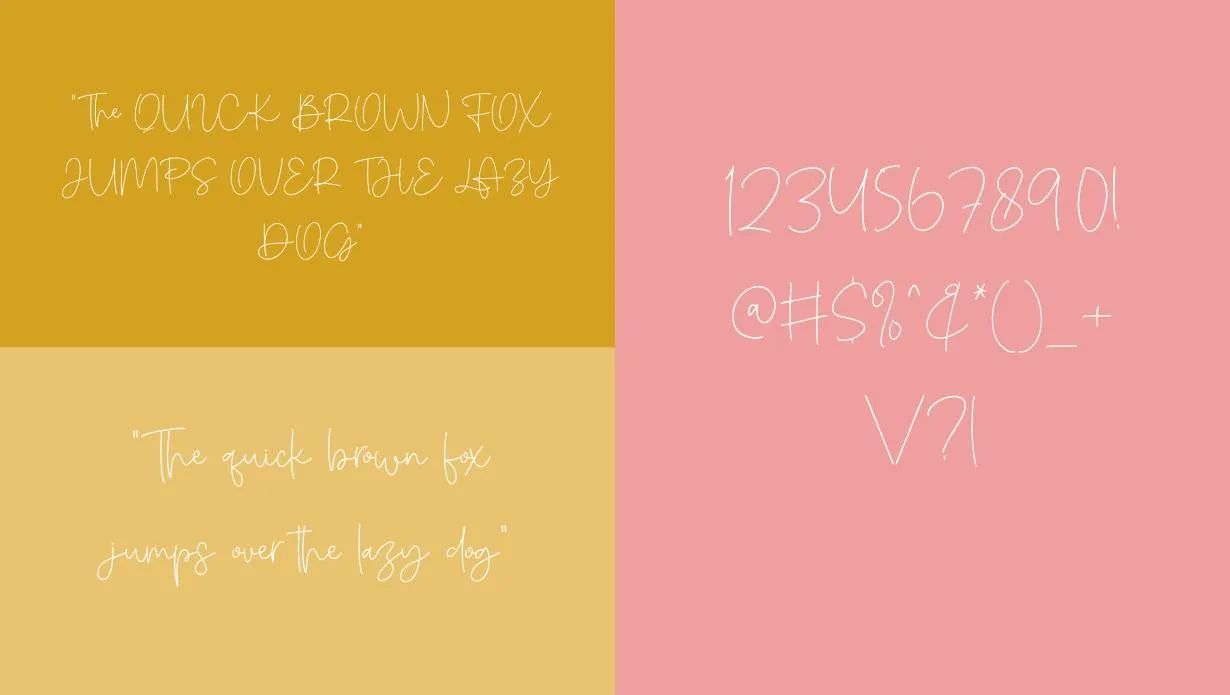
Amichan Font was created by Salamahtype and has an amazing script design. There is no doubt that this font is very popular among designers, people use this style due to its soft and unique look. Many alternatives can be paired with this font.
This font has great texture and a clear design. This style is inspired by classical writings and this unique typeface can be used in CSS styling. It can be used in advertising offices and other digital workplaces for daily tasks. This is the greatest style for producing original designs for the project.
| Name | Amichan Font |
| Designer | Salamahtype |
Amichan Font Family